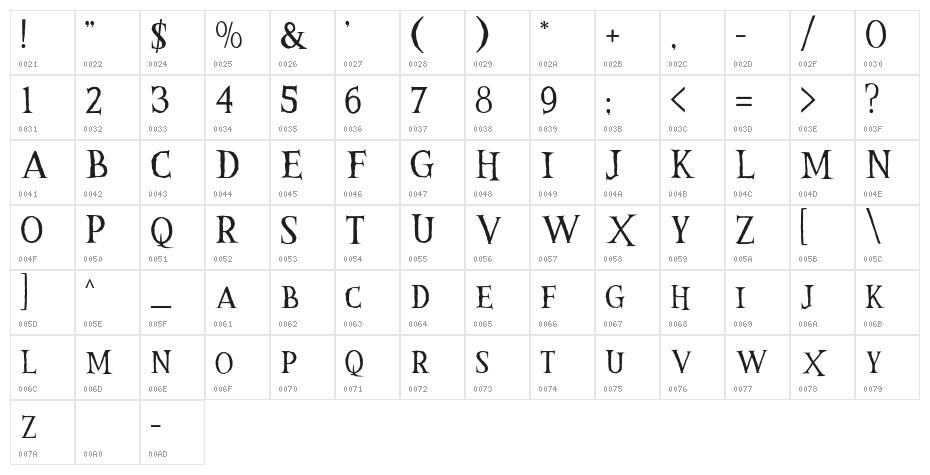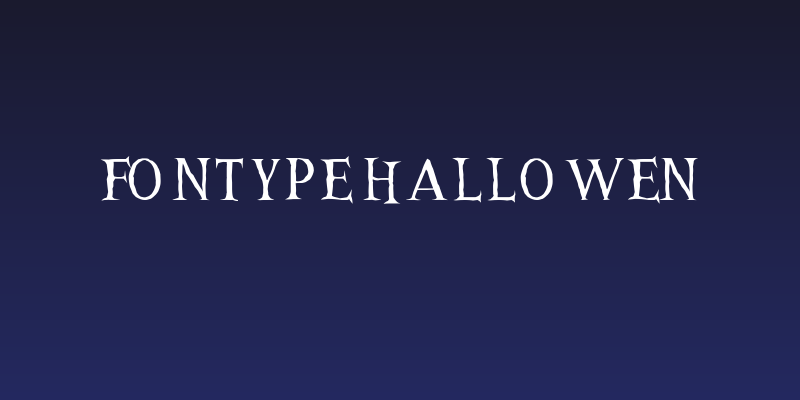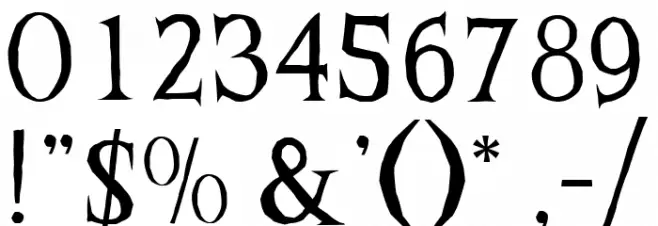
Fontype Hallowen Font
Fontype Hallowen Description
This font features a spooky, jagged style reminiscent of classic Halloween themes. The characters have irregular edges and sharp points, giving them a haunted, eerie appearance. The uppercase and lowercase letters maintain a consistent style, with exaggerated serifs and uneven strokes that create a sense of movement and unease. Numbers and special characters follow the same design principles, enhancing the overall theme. This font is ideal for creating a chilling atmosphere in any design project.
| Proposed Projects | Ideal for Halloween posters, haunted house invitations, horror movie titles, and themed party decorations. |